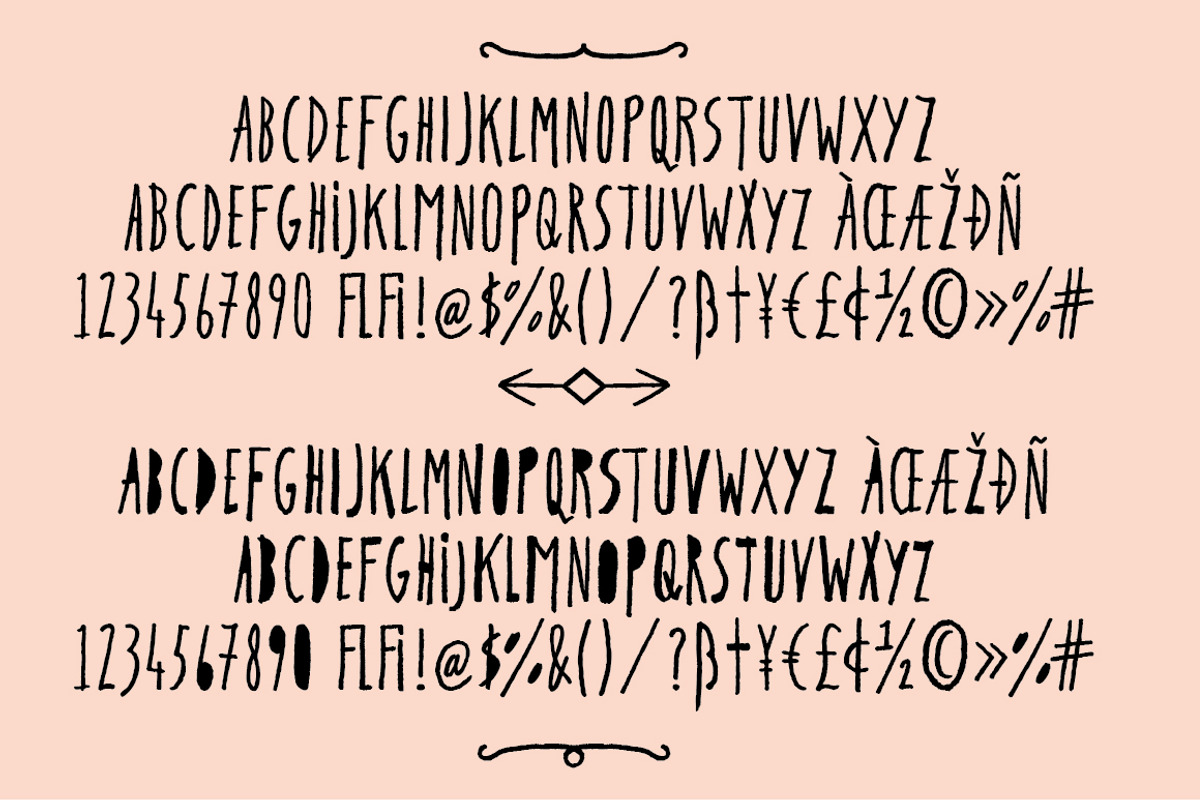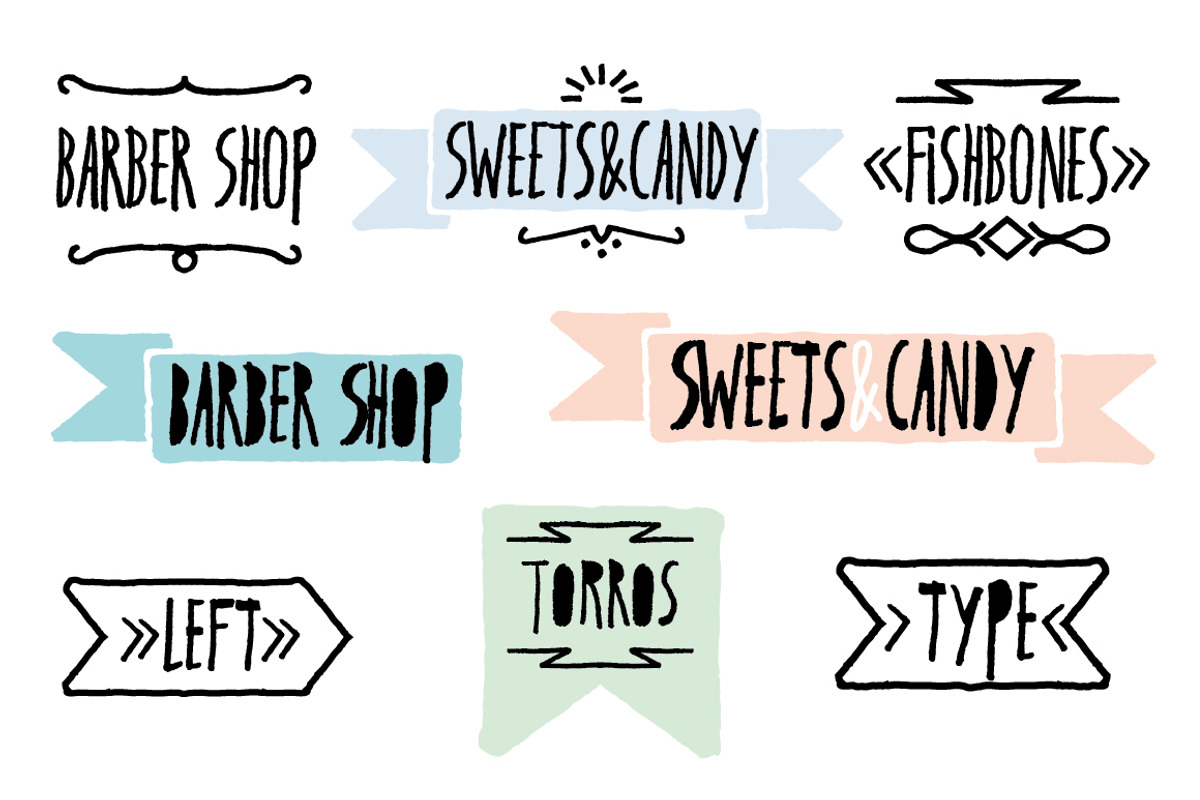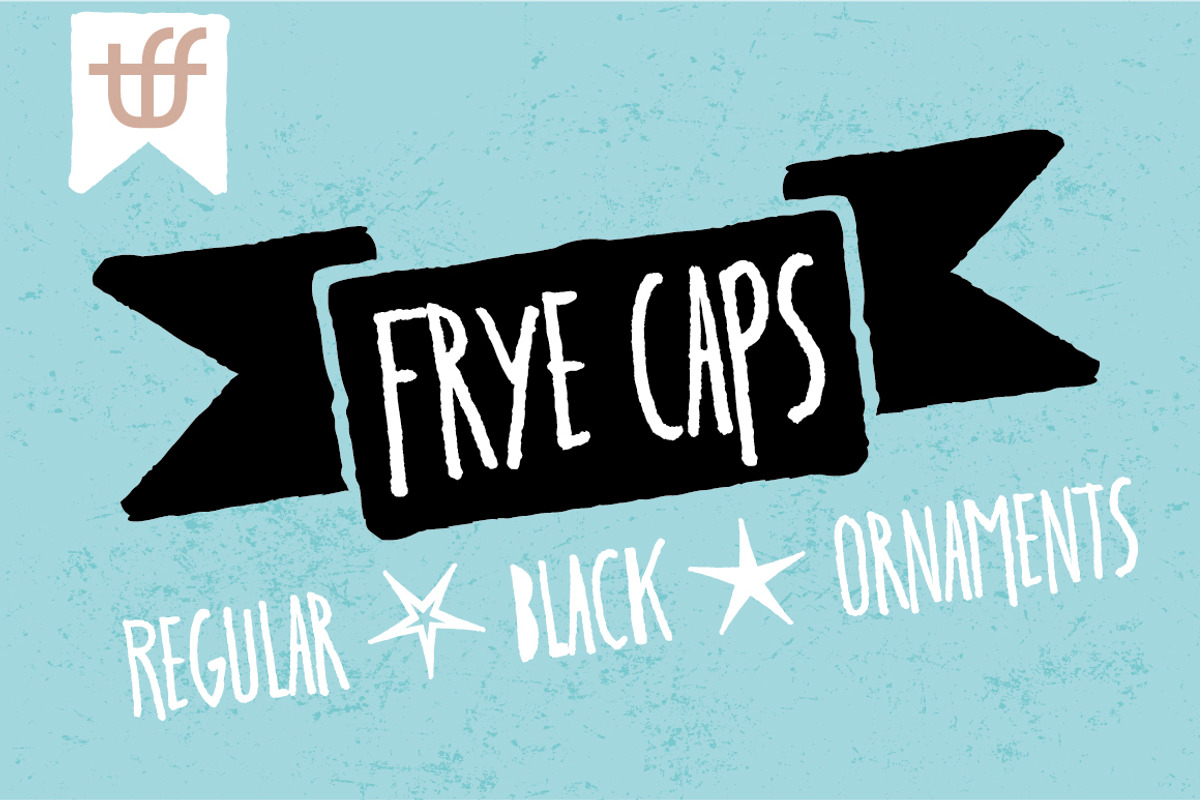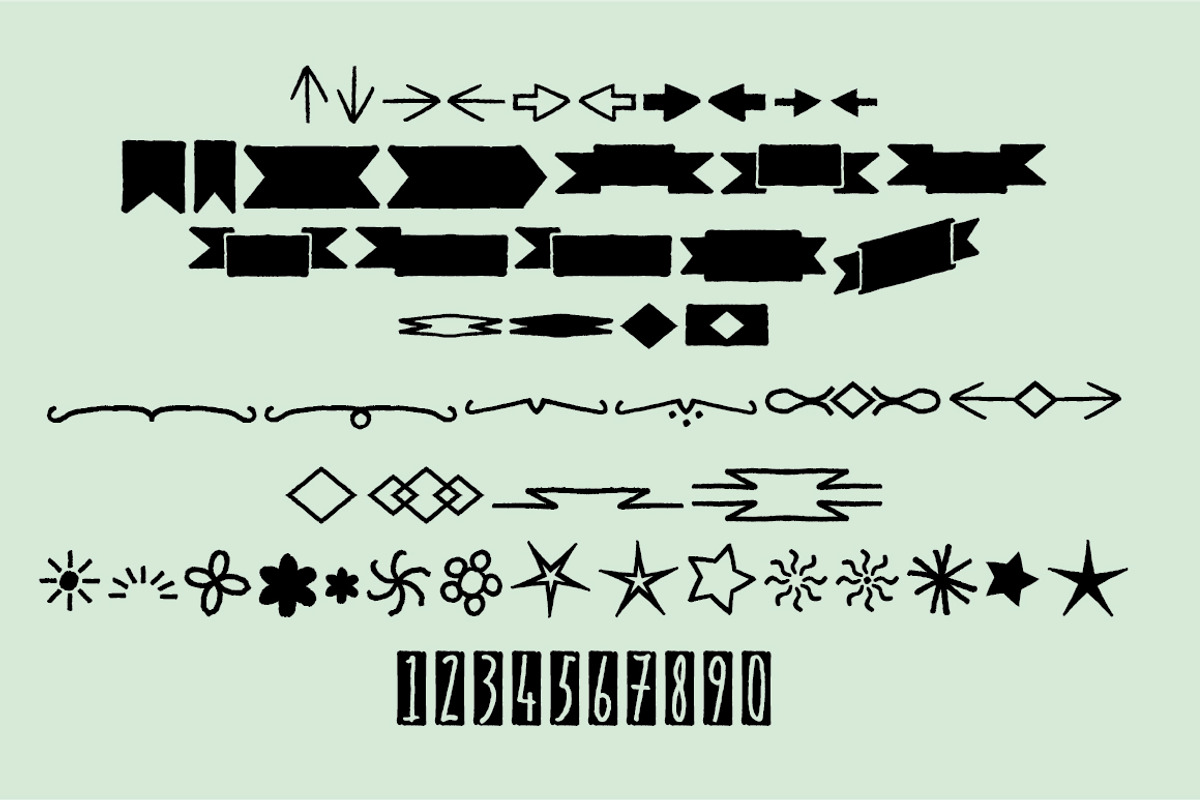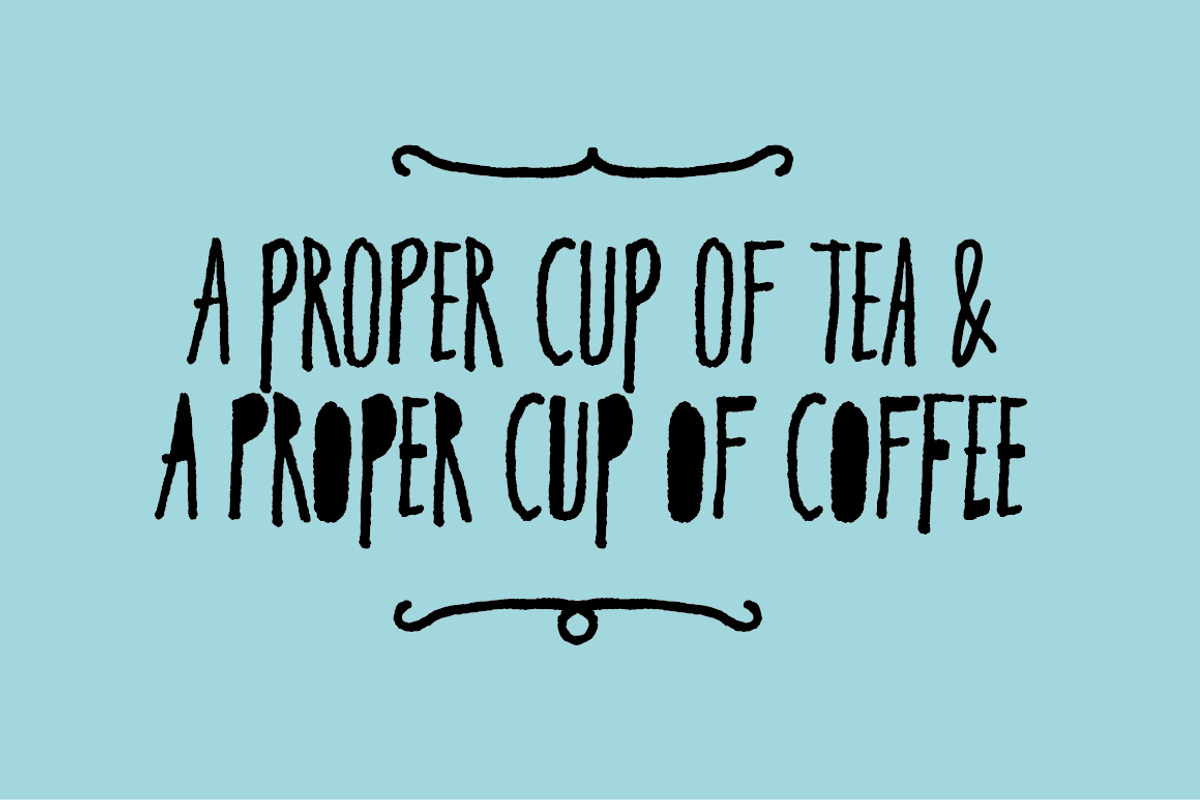
Frye
Frye by TypeFaith Fonts is a font selected for branding, posters, packaging, typography.
Frye by TypeFaith Fonts fits naturally into Branding, posters, packaging, typography.